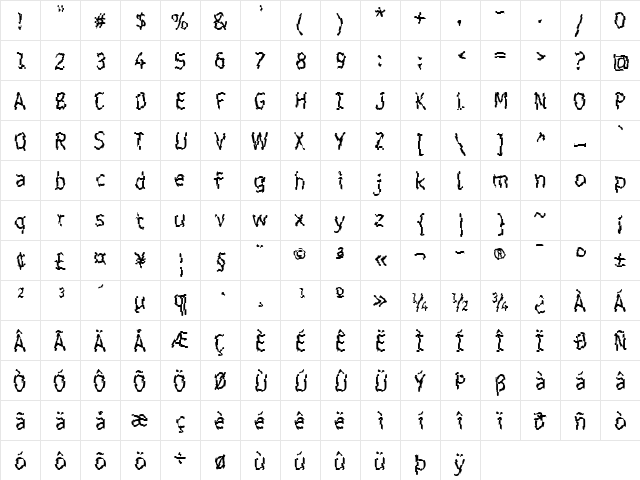
Shatterday ICG Dice
Design Context for Shatterday ICG Typeface
Shatterday ICG is a composed and adaptable typeface that performs quietly and consistently across a wide range of design contexts.